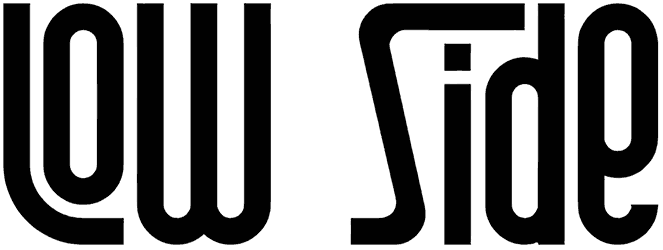
Low Side Font
If you want to give your designs a stylish and contemporary look, Low Side is hard to ignore. This sans serif font has a regular shape with 2 styles inspired by ancient stone inscriptions and immediately attracts the viewer’s attention.
So, you can highlight your cover design, social media posts, and stationery using it. It is enough to look for options in the growing RB library that combine well with this font and compensate for the lack of numbers in it.